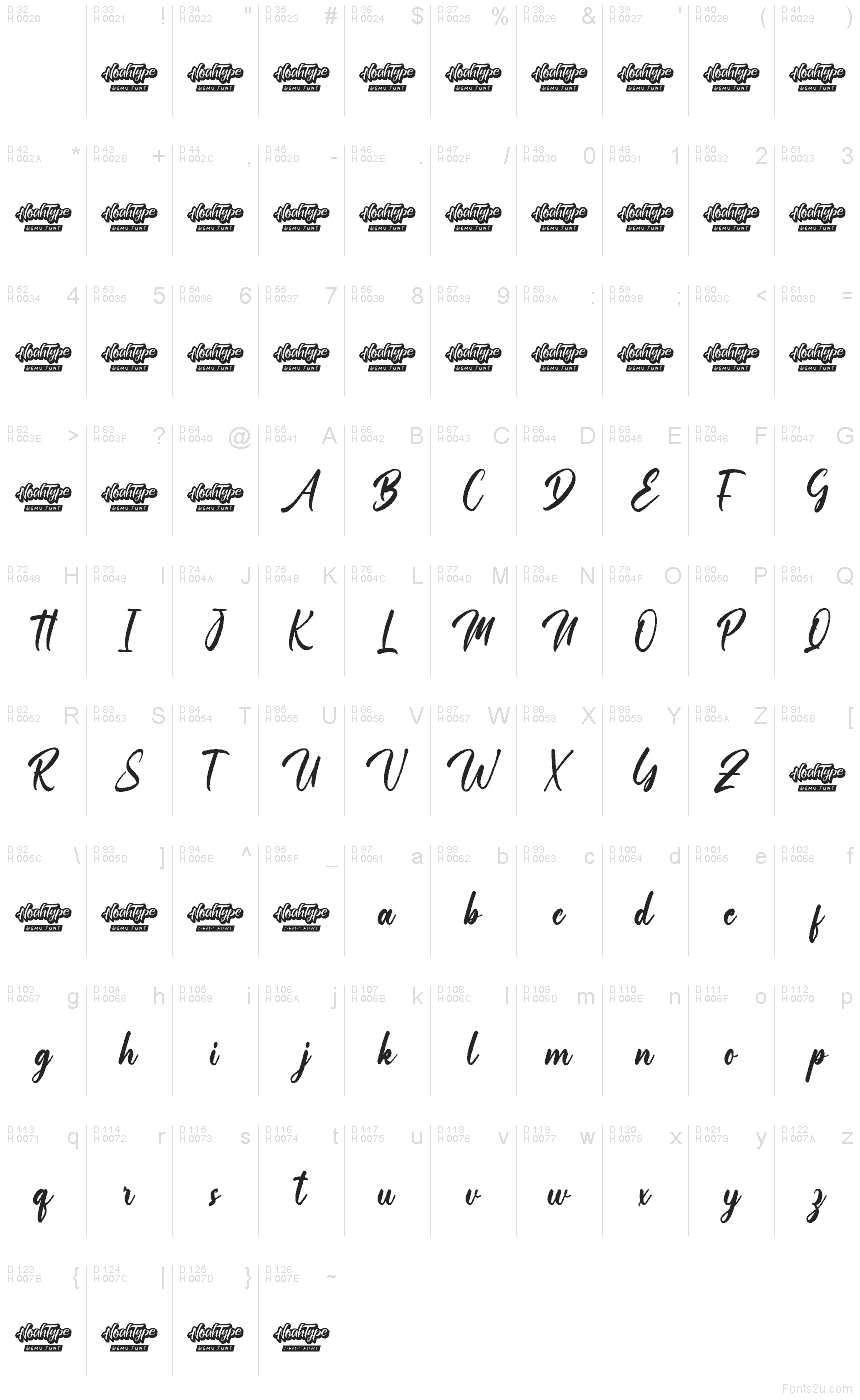
Alkahestic Demo
Alkahestic font by Noah Type is a free calligraphy typeface that solves a familiar tension: lively brush energy without messy, hard-to-read forms. Its smooth, inky strokes taper with a gentle snap, keeping letters connected and spacing steady, so words flow like a signature while staying crisp on screen and in print. The rhythm feels confident—rounded bowls, soft loops, and decisive exits give it that polished, hand-lettered finish.
Using Alkahestic, you’ll get effortless charm for logos, boutique packaging, wedding stationery, quote graphics, café menus, and social posts. This free font shines on short headlines and names; set it a touch larger and let the swashes breathe. For balance, pair it with a clean geometric sans in small text to keep the message clear and modern.